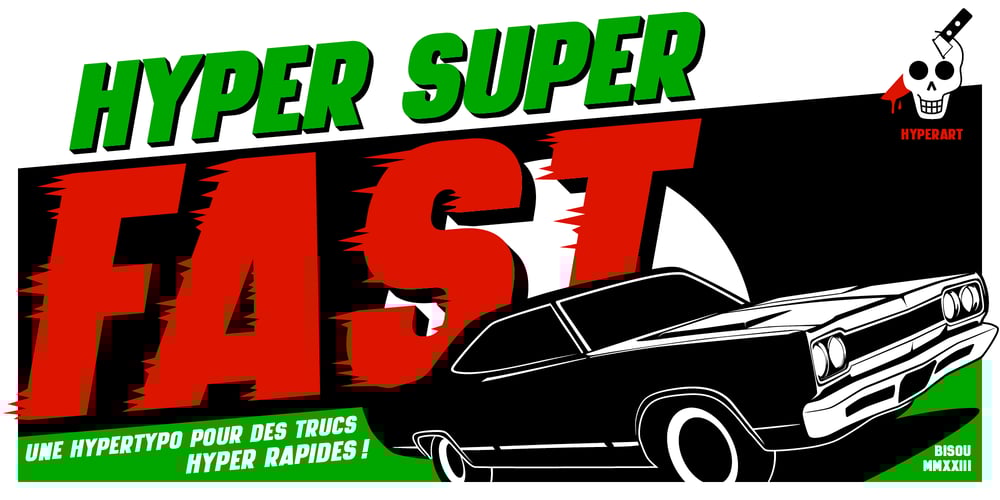
Hyper Super Font Family was designed by Mathias Antonietti and published by Bisou. Hyper Super contains 6 styles and family package options. Made in La Chaux-de-Fonds Switzerland, Hyper Super is born while the hyperdesigner Bisou watches “Blow up”, a french film-lover show. This episode about Paul Newman quotes the 1969 movie “Winning”. The Italian poster with the title “Indianapolis pista infernale” uses a striking handmade font that inspire Hyper Super, a very fast font.Hyper super is thought from ground up to give a strong impact and an impression of speed. Its retro 70’s car racing movies style makes it best suitable a dog race stadium. It works perfectly with short texts for advertisement like a tuning garage sign or delivery pizza menu. Just use it for your pizza restaurant and see Paul Newman in person apply for a delivery boy job.